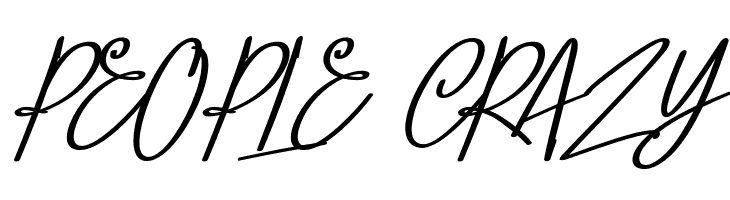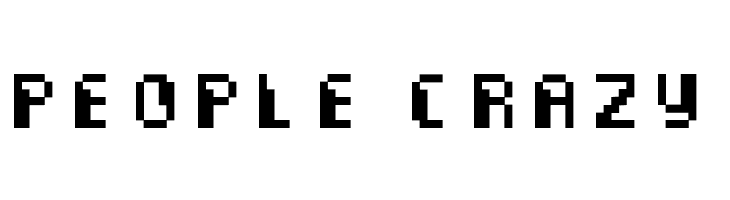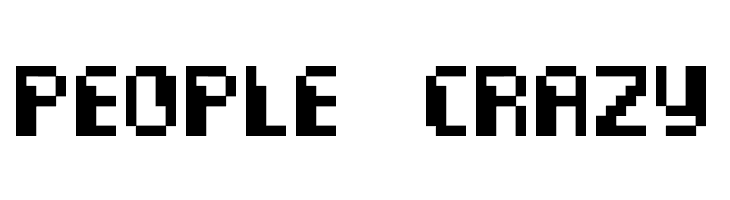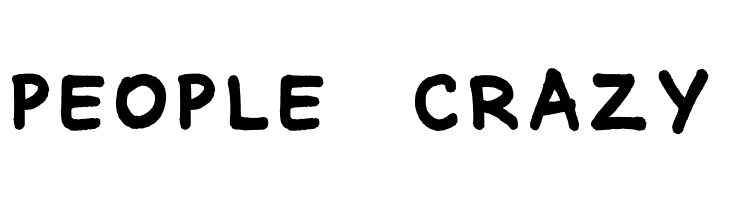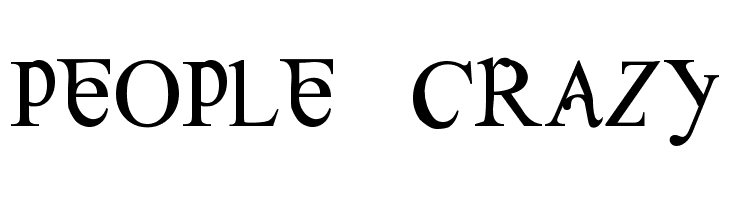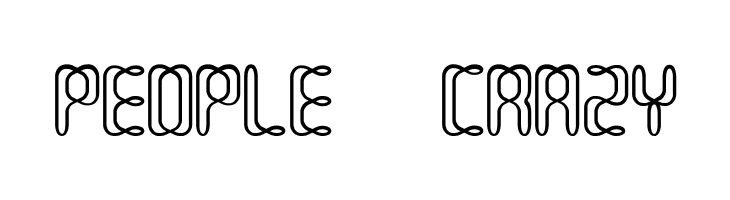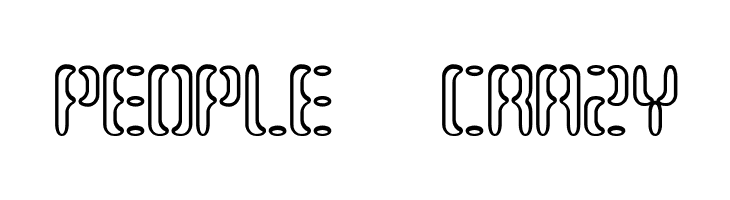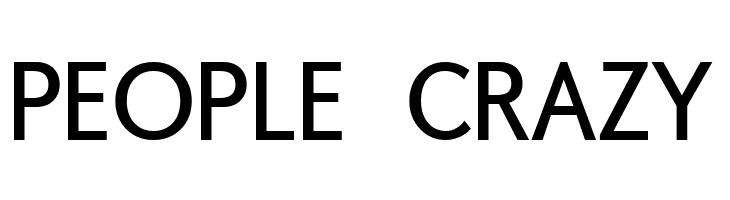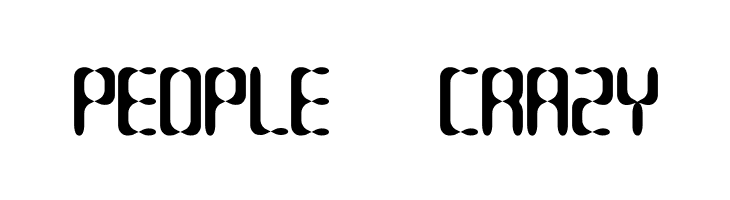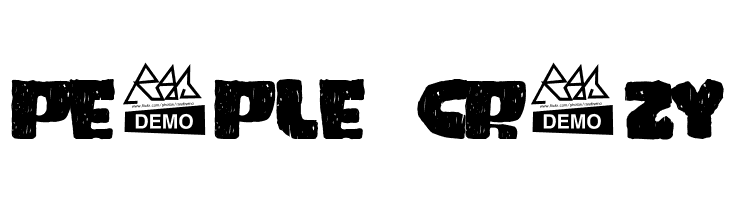
A sleek, modern font with clean lines and a slightly condensed style.
A clean, modern sans-serif font with uniform stroke width and excellent readability.
A playful, character-based decorative font with unique, cartoonish designs.
A playful, modern font with a retro touch and unique curvature.
A bold, dynamic font with a slant and sharp serifs, ideal for impactful designs.
A bold, angular serif font with a vintage flair and dynamic presence.
A decorative serif font with elongated serifs and a tall, narrow structure.
A tall, playful font with rounded terminals and a whimsical style.
A tall, narrow font with subtle serifs and a modern yet classic style.
A bold, geometric font with dynamic striped patterns on uppercase letters.
A bold, modern font with geometric shapes and dynamic patterned elements.
A playful, runic-inspired font with bold, geometric characters.
A monospaced, pixelated font with a retro digital style.
A bold, pixelated font with a geometric, retro digital style.
A bold, geometric font with sharp, angular characters.
A modern, decorative font with interconnected loops and bold strokes.
A modern, rounded font with a clean and geometric design.
A dynamic and flowing script font with elegant, cursive strokes.
A bold, distressed font with a grungy, textured appearance.
An artistic font with sharp serifs and creative character designs.
An elegant, flowing script font with graceful loops and a sophisticated style.
A bold, textured font with a playful and rugged design.
A modern vintage font with tall, narrow letterforms and decorative serifs.